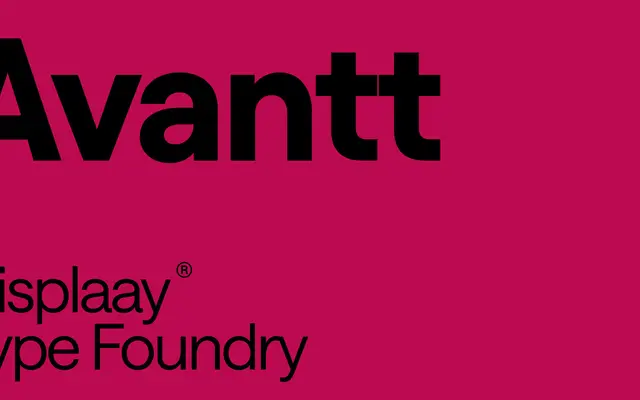
A geometric sans in eight weights with matching italics, offered as a variable font across weight and slant axes.
Avantt spans 16 styles from Thin to Heavy, each paired with an italic, drawing on a geometric construction that the foundry frames around mid-century European modernism — referencing buildings such as Villa Müller and Hotel Avion. A variable font with weight and slant axes gives the family additional flexibility for on-screen and motion applications. The proportions sit in conventional geometric sans territory without departing into novelty.
The page explicitly describes Avantt as operating within a geometric world with various proportions, and its visual character — circular forms, clean construction — aligns squarely with the geometric sans tradition.